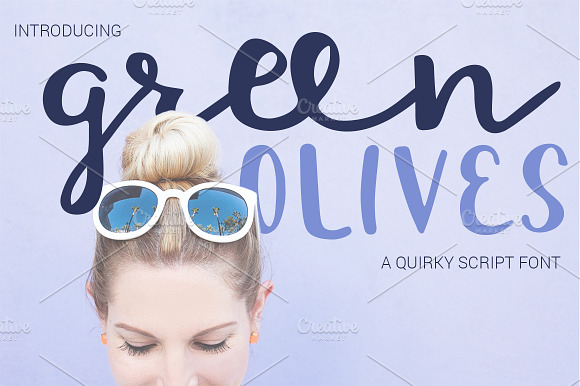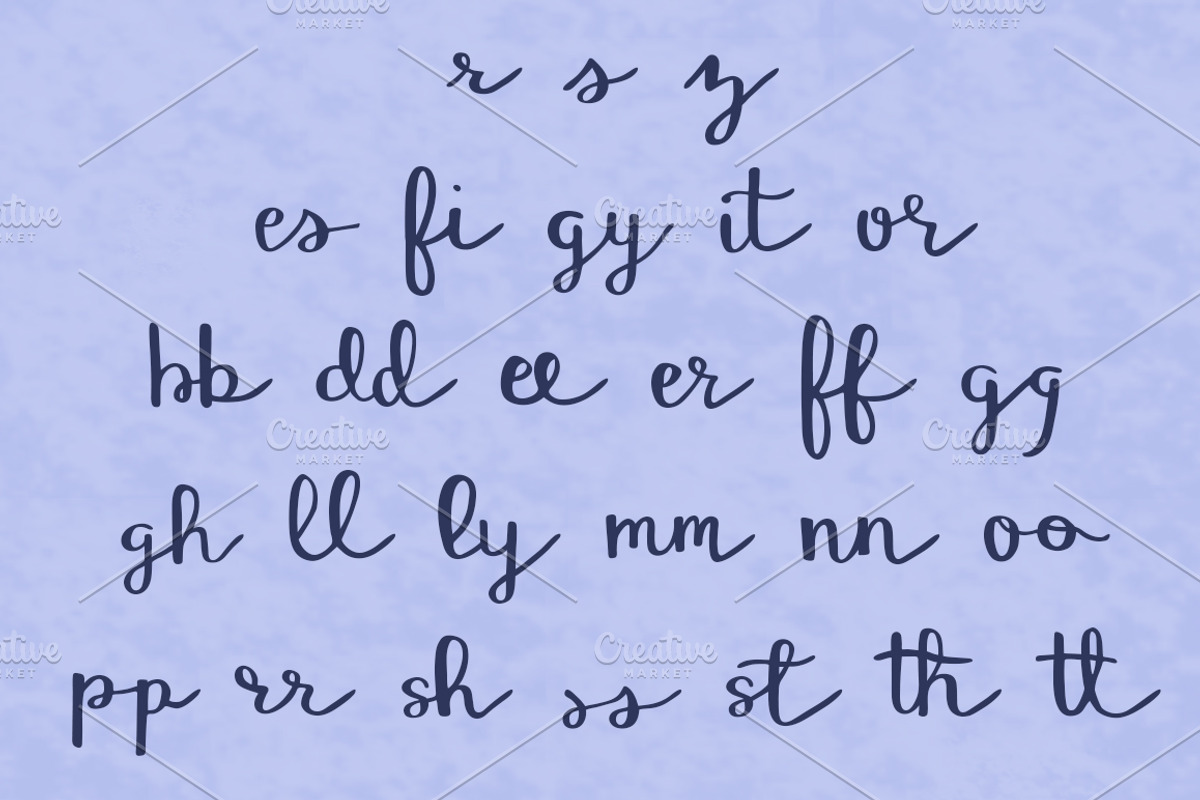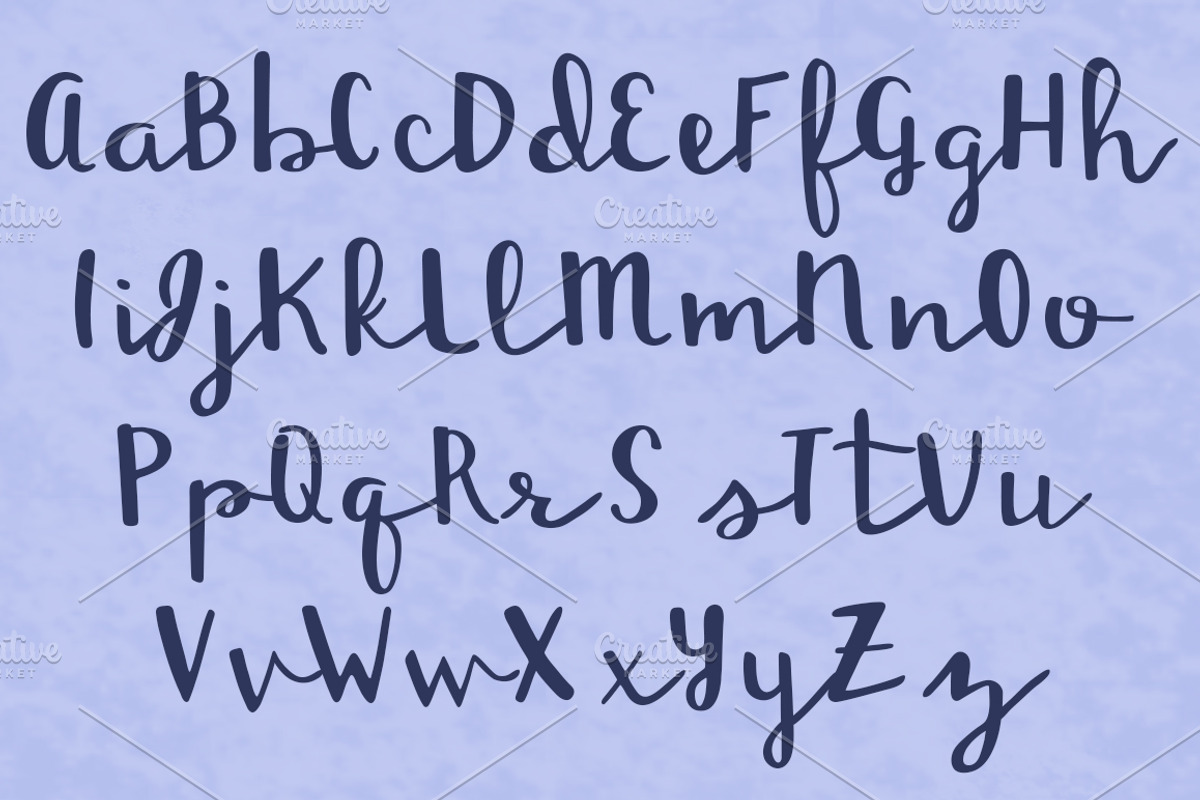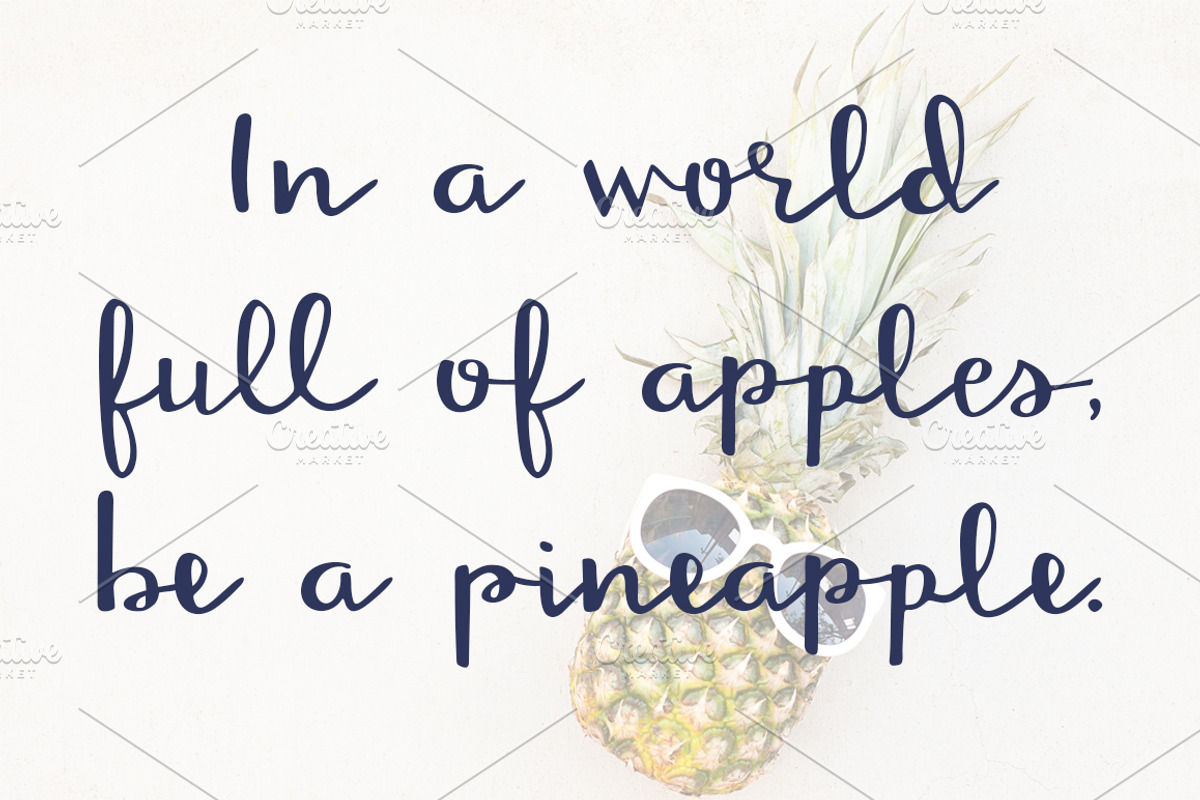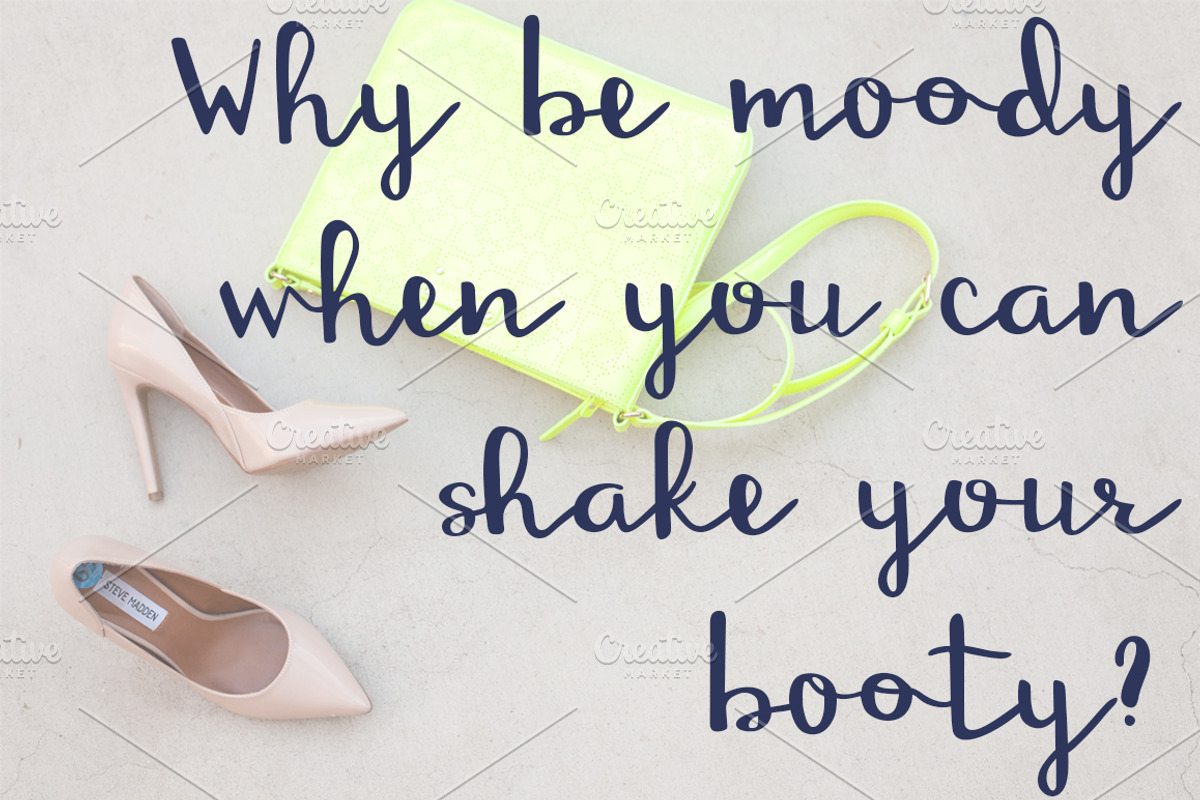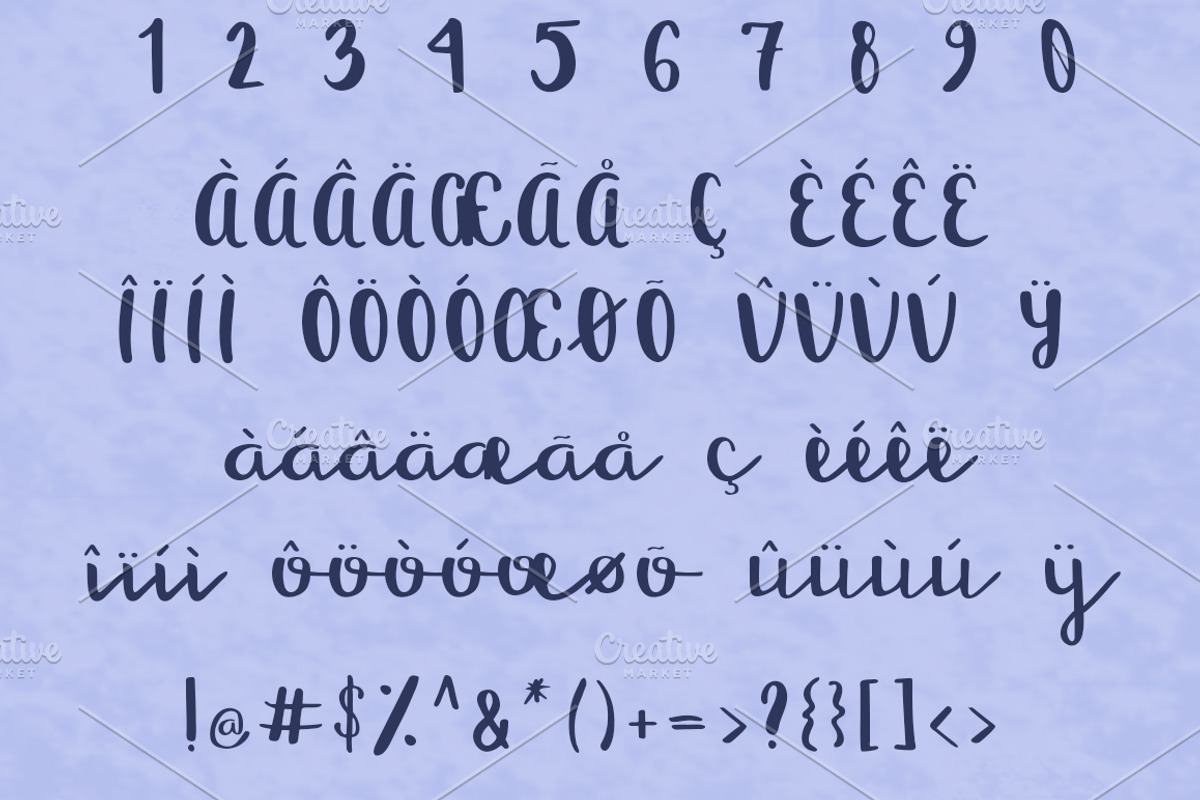
GREEN OLIVES Quirky Script Font
Green Olives is a handwritten font with a bit of spunk. Not everyone can appreciate a quirky personality when they see one, but Green Olives brings a bit of life to your type with both standard and discretionary ligatures that make the font more genuine and handwritten!
Contains full alphabet, standard and discretionary ligatures, contextual alternates, accented characters, numbers, and symbols. Available in OTF format.